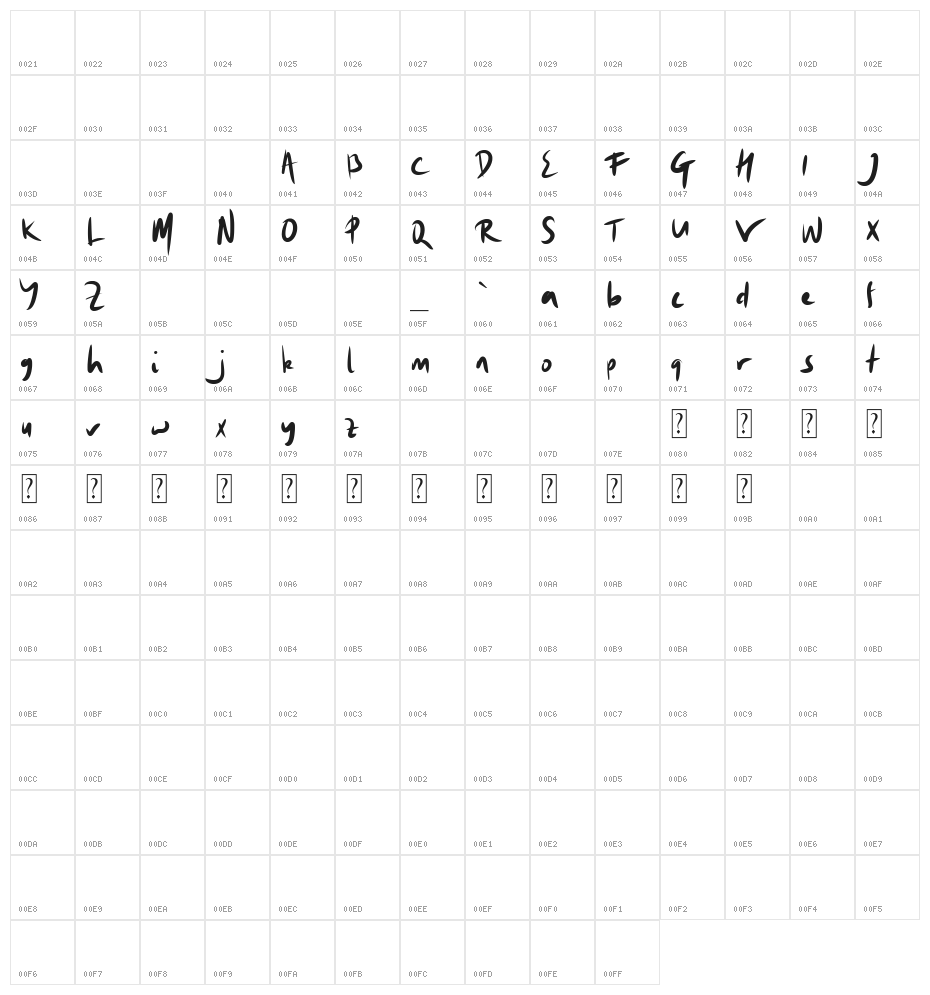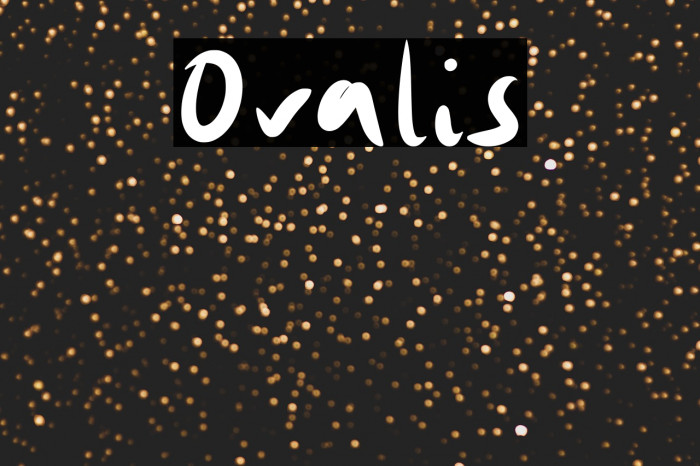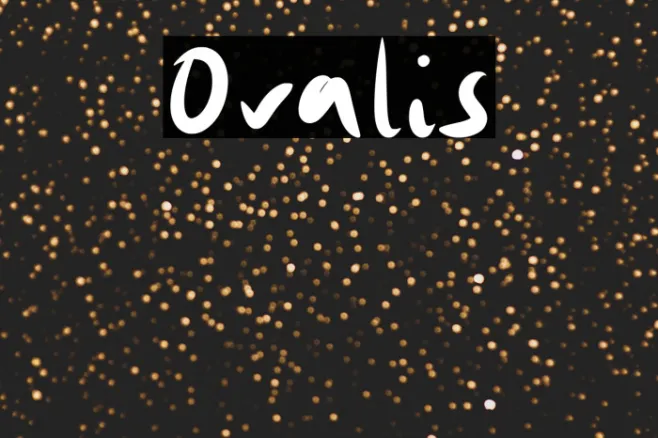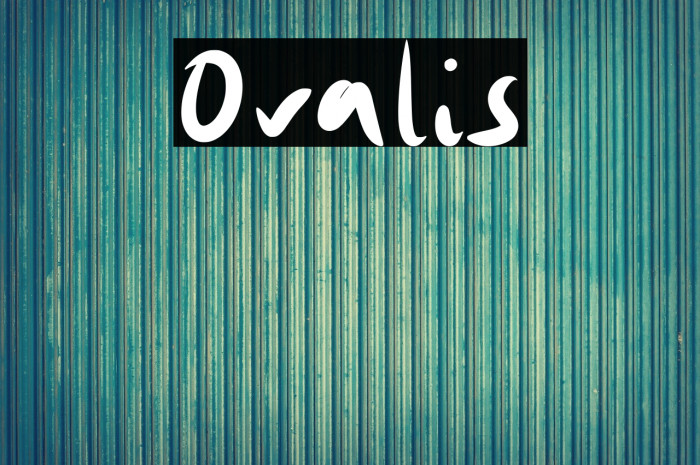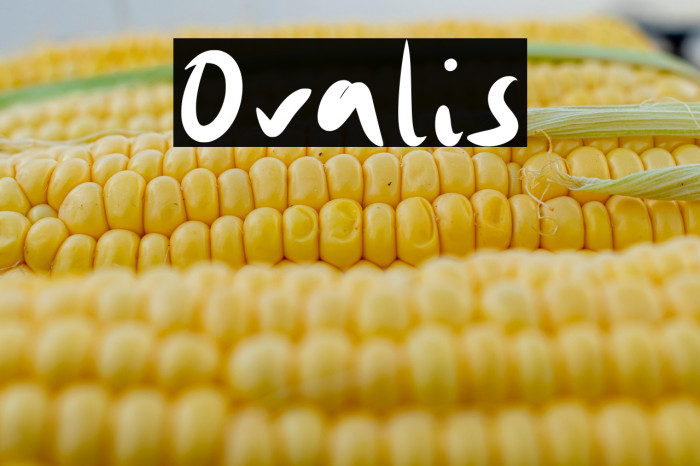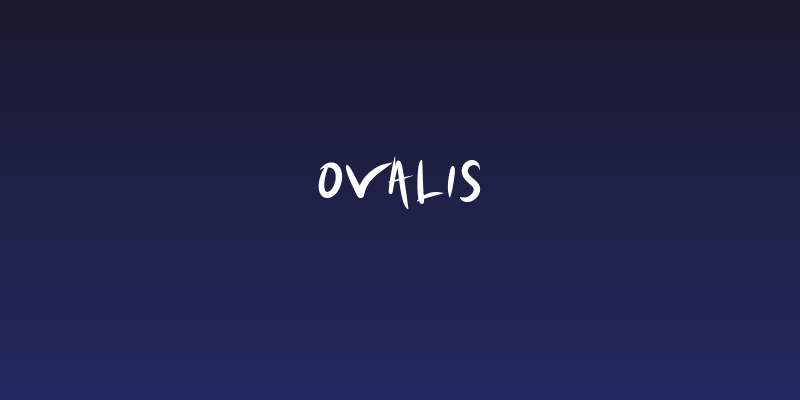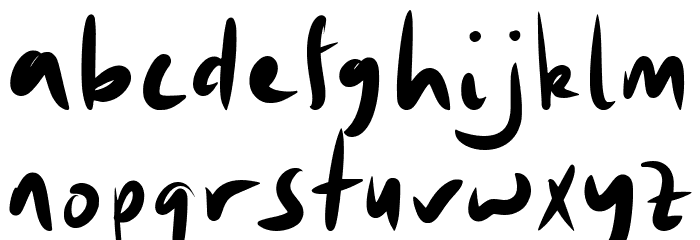
Ovalis Font
Ovalis Description
This font features a dynamic and expressive handwritten style, characterized by its fluid strokes and playful curves. The uppercase letters exhibit a bold and confident presence, while the lowercase letters maintain a consistent flow with a touch of whimsy. The overall appearance is lively and energetic, making it suitable for creative and informal projects. The font's unique personality is enhanced by its irregular shapes and varying stroke widths, which add a sense of movement and spontaneity. It is ideal for projects that require a personal touch or a sense of artistic flair.